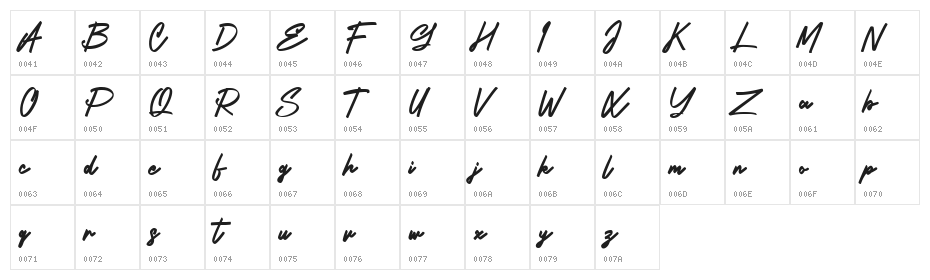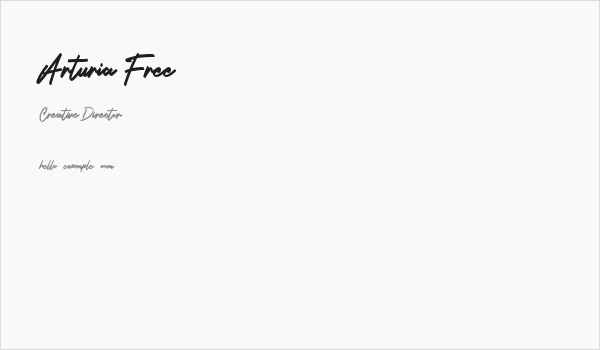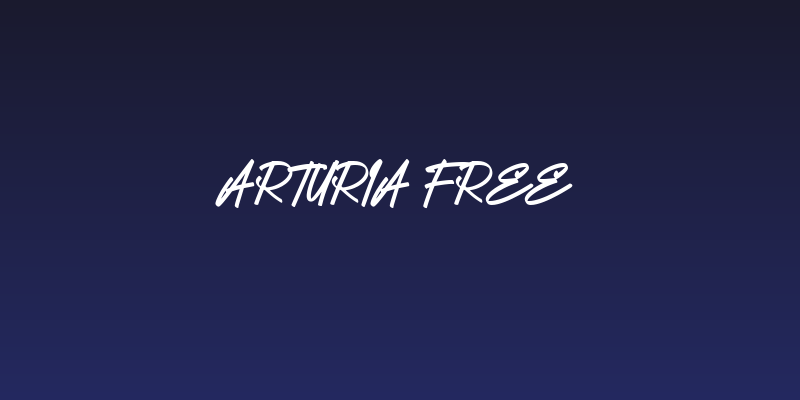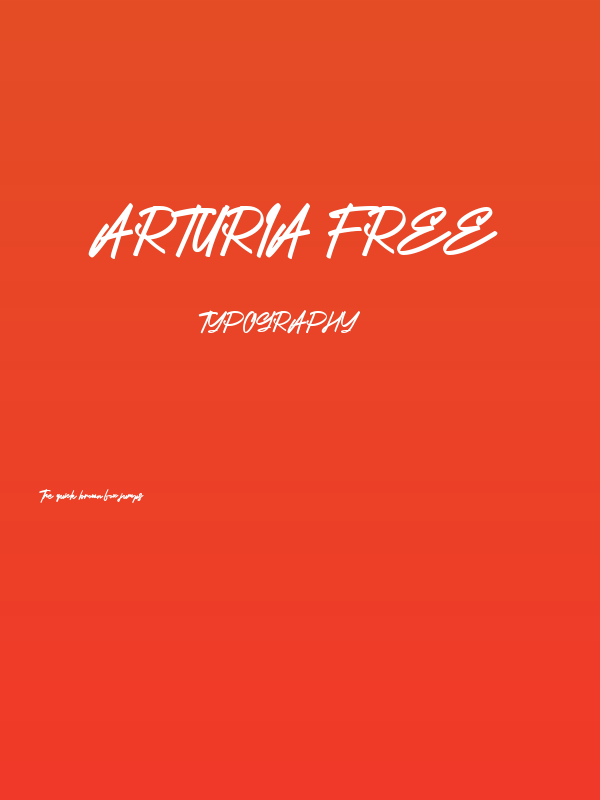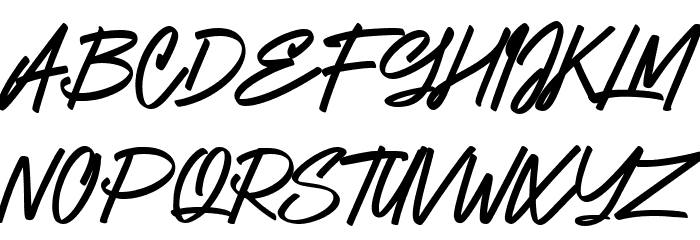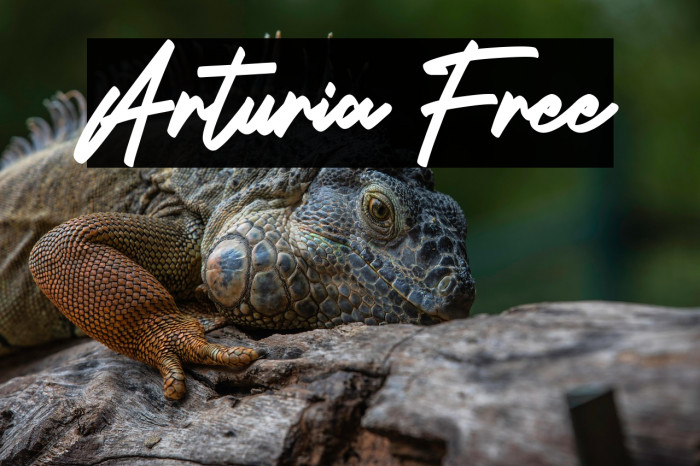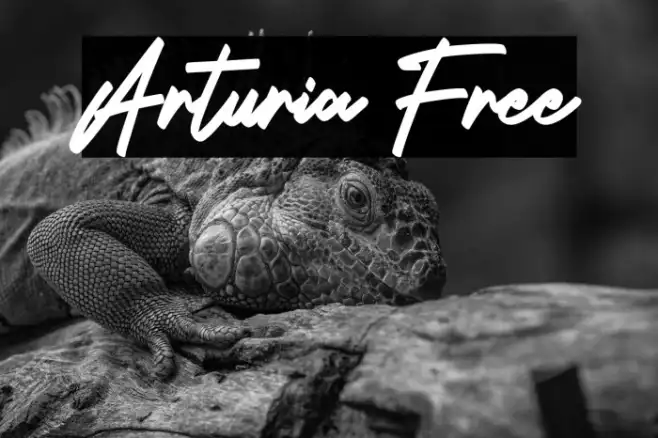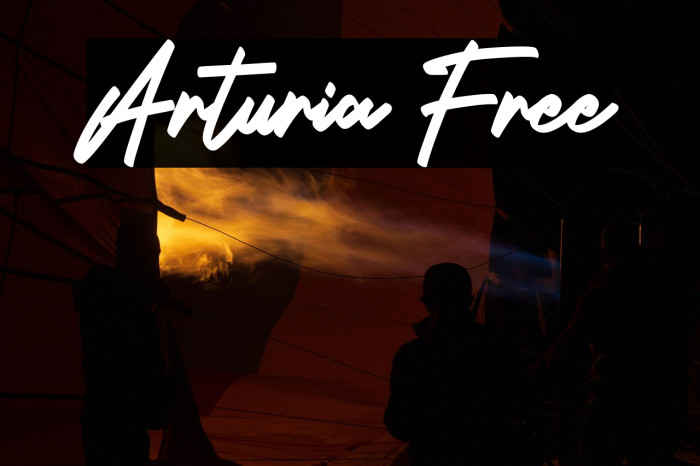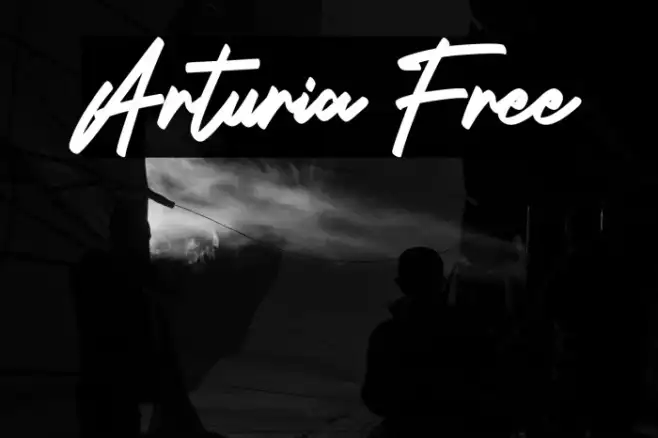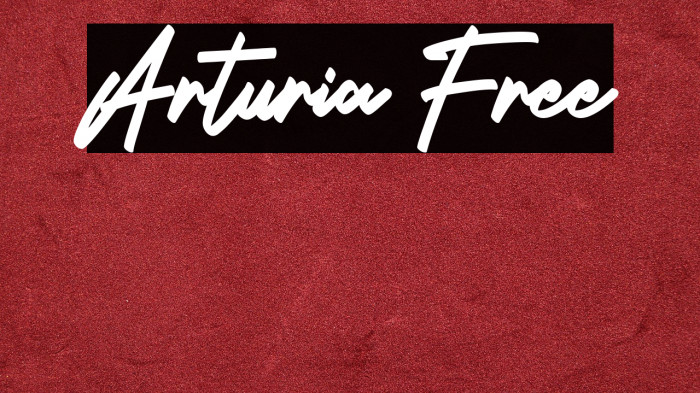
Arturia Free Font
Arturia Free Description
This font exudes a dynamic and energetic style with its bold, flowing script. The characters are interconnected, giving it a seamless handwritten appearance. The uppercase letters are tall and slightly slanted, while the lowercase letters maintain a consistent flow, enhancing its cursive nature. The strokes are thick, providing a strong visual impact, yet they maintain a smooth, fluid motion that suggests a sense of movement and elegance. This font is ideal for creating a personal and approachable feel, making it suitable for a variety of creative projects.